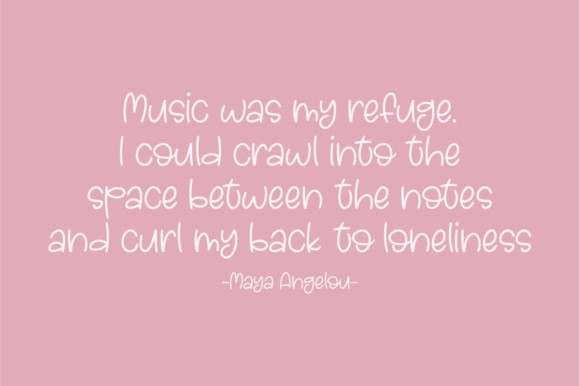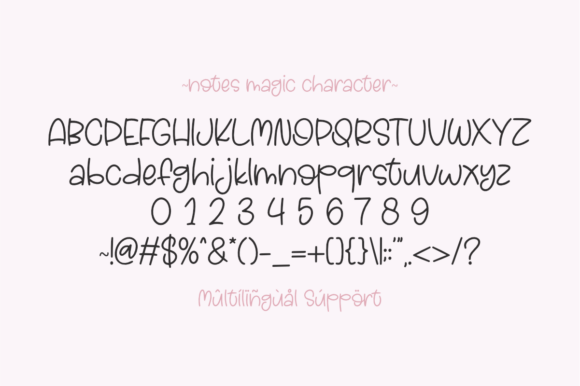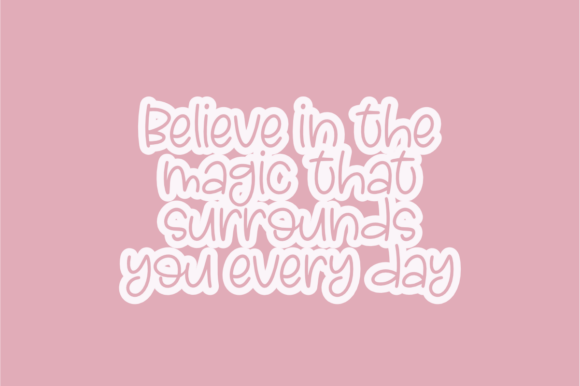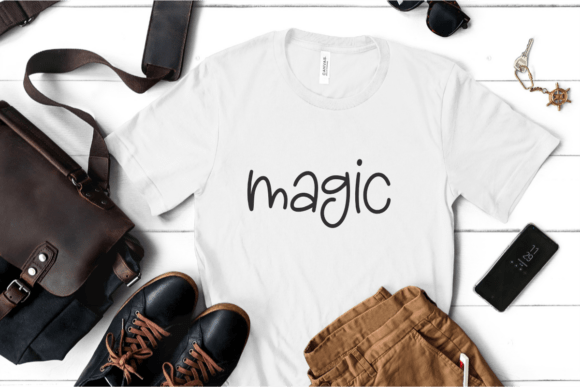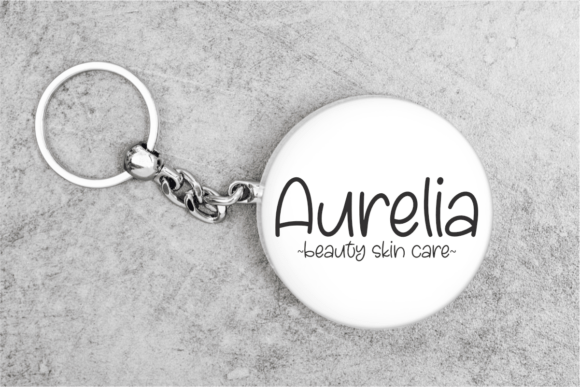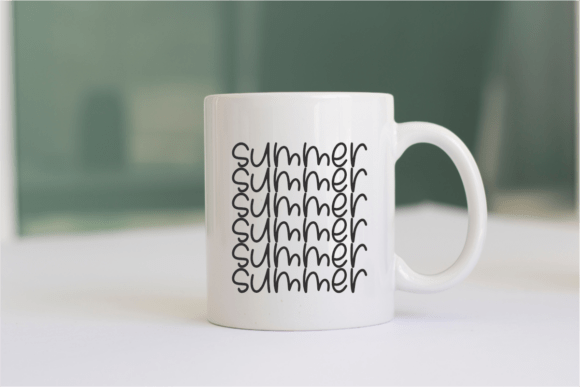
Introduction to Notes Magic Font
Have you ever stumbled upon a font that makes you feel like you’re rediscovering your creative spark? For me, that moment came when I laid eyes on the Notes Magic Font. Its whimsical, handwritten style instantly transported me to a world of colorful planners, DIY crafts, and late-night journaling sessions. I knew I had to dive deeper and explore the magic behind this delightful design resource.
As a creative enthusiast, I’ve always been on the hunt for high-quality fonts that can elevate my projects and make them truly special. Notes Magic Font delivers just that – a free download that’s perfect for planners, stickers, cards, quotes, and craft projects. Whether you’re a seasoned designer or a DIY newbie, this font is a valuable addition to your design arsenal.
With its transparent background and versatile design, Notes Magic Font is an ideal choice for a wide range of creative projects. From Cricut crafts to social media graphics, this font is sure to add a touch of personality and whimsy to your work.
Key Features of Notes Magic Font
- High-quality, unique font design ideal for creative projects, with a transparent background for easy integration into any design.
- Resolution-independent design ensures the font remains crisp and clear at any size, from small text to large headings.
- Perfect for use in digital design, including web design, graphic design, and print design, due to its high-quality design and versatility.
- Designed with a focus on readability and aesthetics, making it an excellent choice for designers seeking a high-quality, free design resource.
- Supports a wide range of languages, making it a great option for international design projects.
Honest Review: Notes Magic Font
I recently came across the Notes Magic Font, and I must say it’s a great addition to my design resources. The first thing that caught my attention was the high quality of the font, which is perfect for any creative project.
The Notes Magic Font has a unique and modern aesthetic, making it perfect for a range of design projects. It’s a great choice for designers who want to add a touch of elegance and sophistication to their work.
Here are some of the key features of the Notes Magic Font:
- Flexible and easy to use
Overall, I’m impressed with the Notes Magic Font, and I would definitely recommend it to designers looking for a high-quality, free design resource. ✨ It’s a great choice for any creative project, and it’s sure to deliver professional-looking results.
Experiment with different font sizes and styles to create a unique look. Use Notes Magic Font in combination with other design elements to add depth and interest to your designs.
Notes Magic Font is perfect for creating social media graphics, blog posts, and presentations. Its high-quality design and transparent background make it a great resource for designers and non-designers alike.